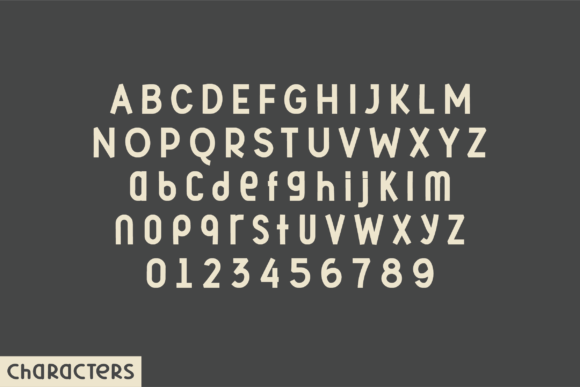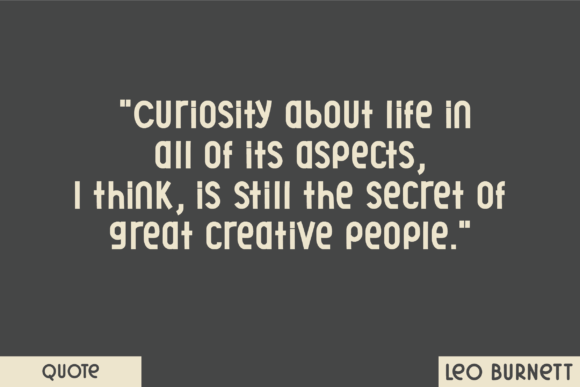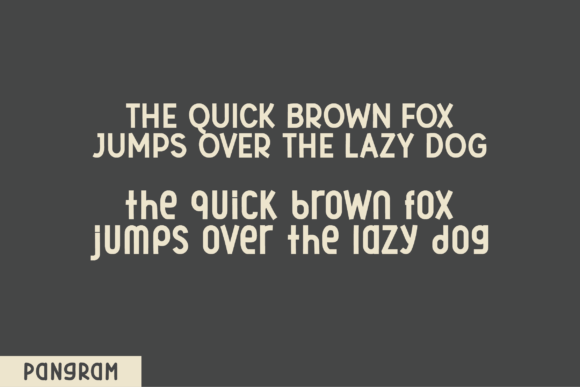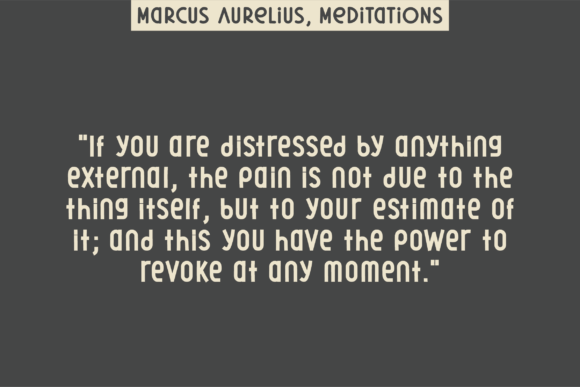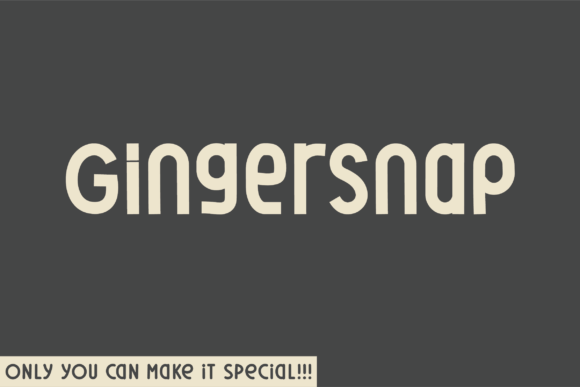
Gingersnap Font: A Unique Sans Serif Font for Creative Designs
In the world of typography, fonts play a crucial role in conveying messages, expressing emotions, and creating visual identities. For designers, crafters, and creative enthusiasts, finding the perfect font can make all the difference in bringing their ideas to life. One such font that has gained attention for its distinctive characteristics is the Gingersnap Font. In this article, we’ll explore what makes Gingersnap a standout font, its features, and how it can be used in various design projects.
The Story Behind Gingersnap Font
Gingersnap is a natural sans serif font that has been crafted with meticulous attention to detail. What sets it apart is its unique creation process – not a single node in each character’s indentation was altered. This approach has resulted in a font that exudes a sense of organic simplicity, making it both interesting and unique. The Gingersnap Font is perfect for designers looking for a typeface that breaks away from conventional norms.
Key Features of Gingersnap Font
- Natural Sans Serif: Gingersnap boasts a clean and natural sans serif design, making it versatile for a wide range of applications.
- Unique Indentation: The untouched node approach gives Gingersnap its distinctive look, setting it apart from other sans serif fonts.
- Versatility: Its simplicity and uniqueness make it suitable for various design projects, from quotes and notes to tees and product designs.
Uses of Gingersnap Font
The Gingersnap Font, with its clean lines and unique character, is incredibly versatile. Here are some of the best ways to utilize this font:
- Quotes and Notes: The Gingersnap Font is perfect for highlighting quotes and notes due to its clear and readable design. It adds a touch of elegance and simplicity, making the text stand out.
- T-Shirts and Merchandise: For crafters and designers creating apparel and merchandise, Gingersnap offers a stylish and modern look that will appeal to a wide audience.
- Product Design: Whether you’re designing packaging, posters, or any other product, Gingersnap’s unique sans serif style can add a contemporary touch to your creations.
- Digital Content: For bloggers, social media influencers, and content creators, Gingersnap can be used to enhance the visual appeal of digital content, making it more engaging for readers.
Why Choose Gingersnap Font?
In a sea of fonts, Gingersnap stands out for several reasons:
- Uniqueness: Its unaltered node approach makes it a one-of-a-kind font that can help your designs stand out.
- Readability: Despite its uniqueness, Gingersnap maintains high readability, making it suitable for both digital and print designs.
- Versatility: Its natural and clean design allows it to fit seamlessly into various design contexts.
Gingersnap Font offers a refreshing take on sans serif typography, bringing a unique blend of simplicity and character to the table. For designers and crafters looking for a font that can add a distinctive touch to their work, Gingersnap is undoubtedly worth exploring. Whether you’re working on quotes, notes, tees, product designs, or any other creative project, Gingersnap’s natural and unique style is sure to enhance your designs and make them stand out.
So, if you’re on the hunt for a font that combines elegance, readability, and a dash of uniqueness, look no further than Gingersnap Font. It’s time to give your designs a fresh and contemporary look with this exceptional sans serif font.